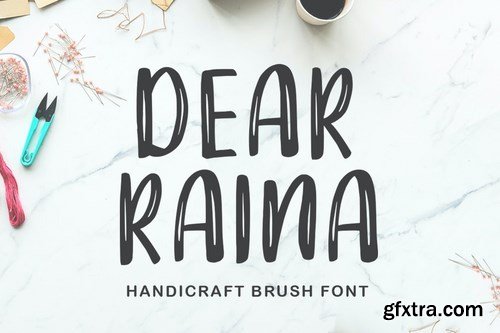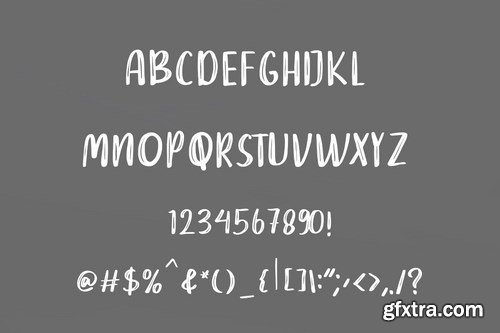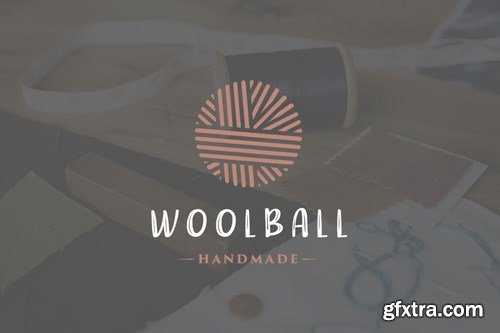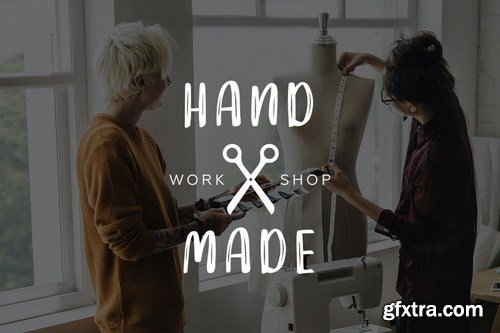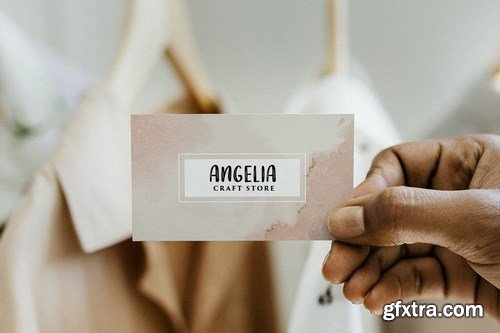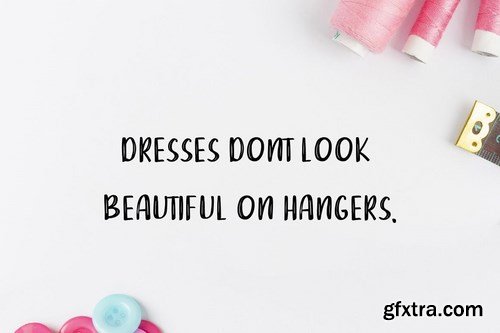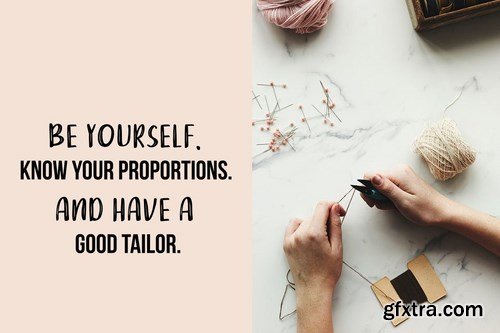
Dear Raina Font is a beautiful Handcrafted font. It will elevate a wide range of design projects to the highest level, be it branding, headings, wedding designs, invitations, signatures, logos, labels, and much more!
This enchanting font will turn any creative idea into a true standout. Perfect fit for all of your logos, branding, social media, etc. Get creative with its unique playfulness, and use it to brighten up any crafting project! Uppercase + Lowercase Letters Numbers + Punctuation Ligature Feature OpenType features Multilingual support